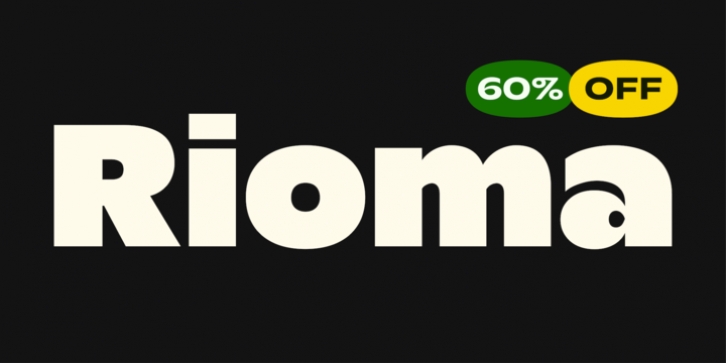
Rioma is geometric typeface inspired from legend of geometric typeface Antique Olive. Rioma Normal character shapes have optimized proportions and an improved balance perfect to use for text and the heavy weight is have a strong character have a unique style with smooth shape to use it for any display, Nord version with cotemprary character for display Something look strength of its wide letterforms at larger sizes and their simplicity at smaller sizes struck a chord. and also with Rioma wide version with aesthetic and modern look can be use for any display media to support your visual design.
Variable:
Rioma support variable with three variation axes: weight, width, and Italic.
Rioma OpenType features: aalt, ordn, locl, case, frac, subs, sups, numr, dnom, tnum, onum, lnum, pnum, smcp, Alternates character ss01, ss02, ss03, ss04, ss05, locl, dlig, liga, calt.